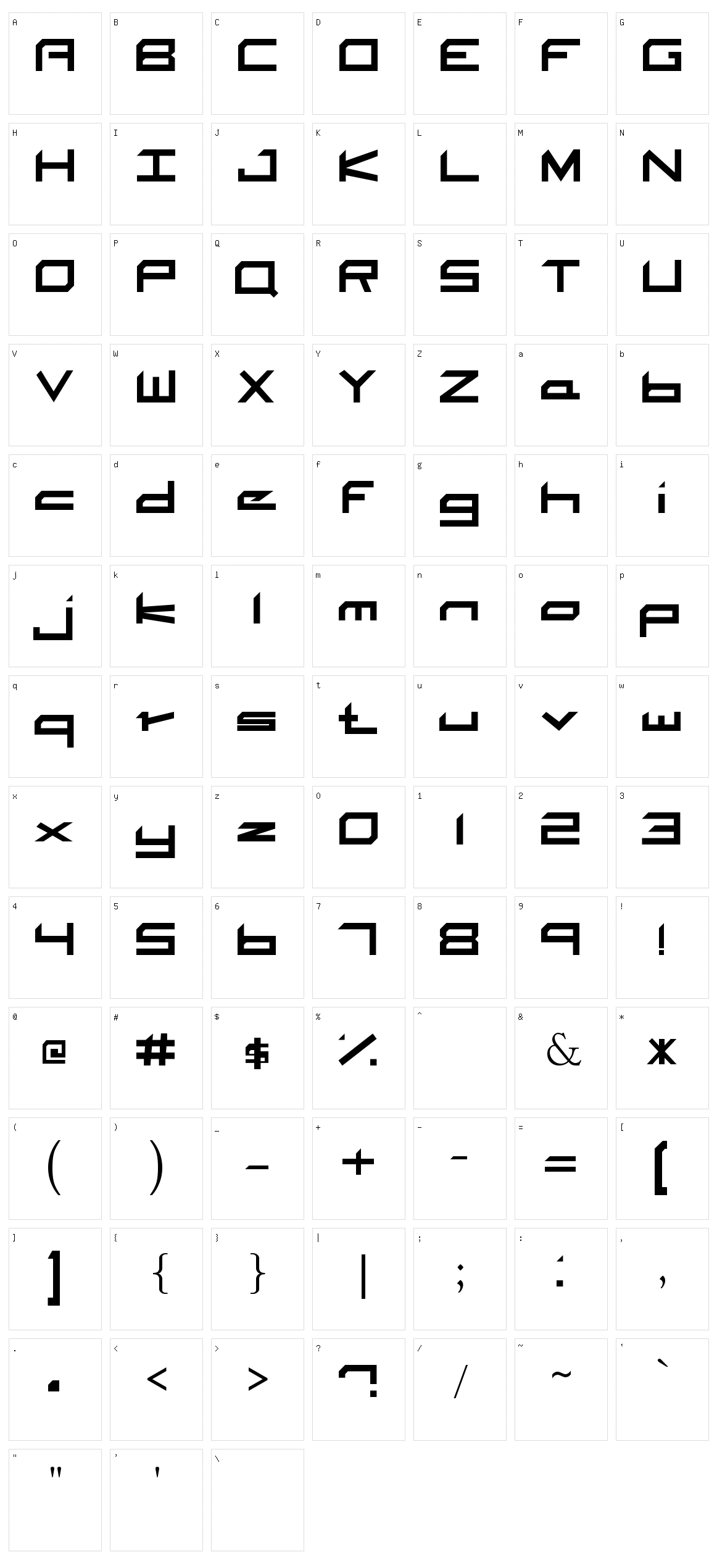
The free font The Adroit is carefully designed by Rebbiya Younis, showcasing a thoughtful balance of creativity and usability and falls under the Square font style. When you download the ZIP file, it contains only 10.94 KB of font files, making it lightweight and quick to download. Please review the license details below to understand permitted usage and distribution rights. If license information is not available, we recommend using this font for personal projects only or contacting the author directly for commercial usage permissions.